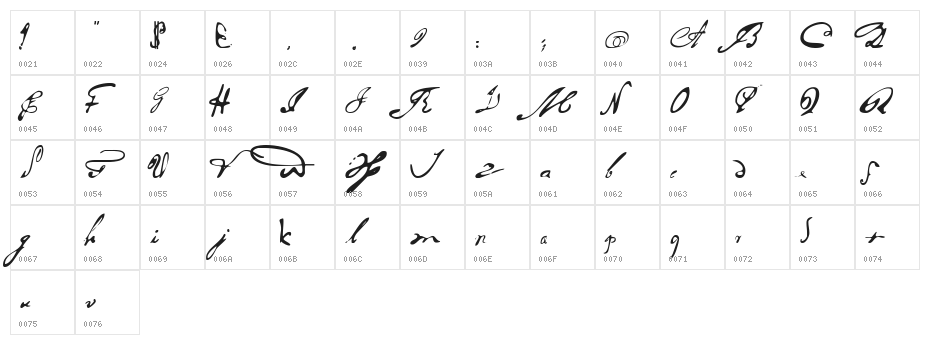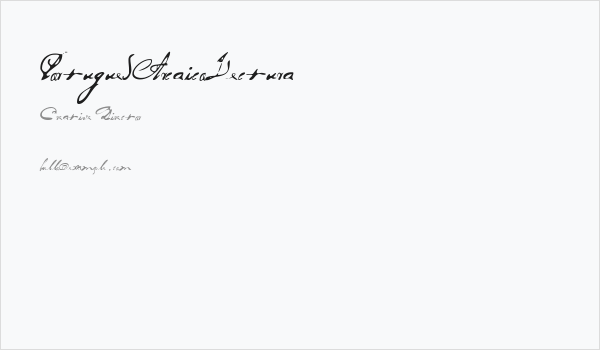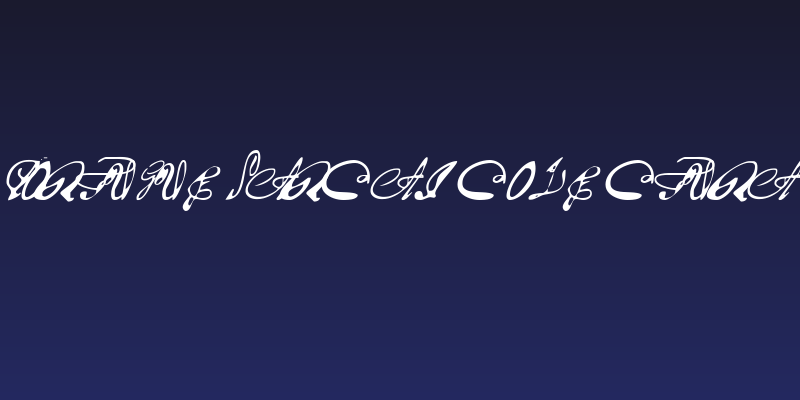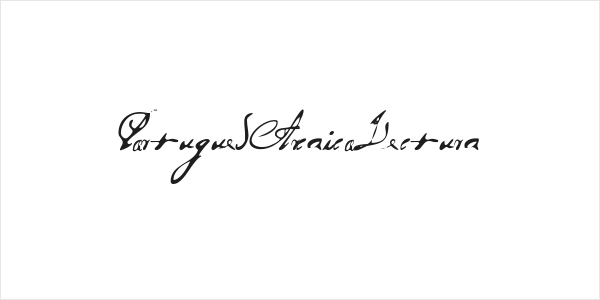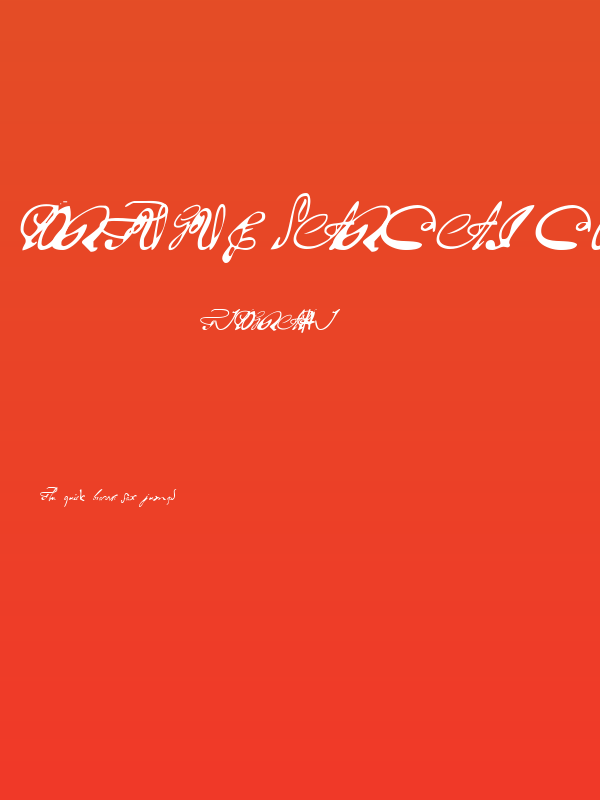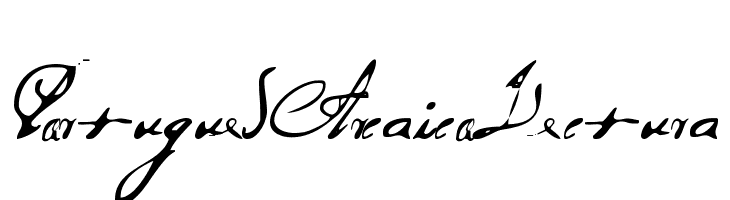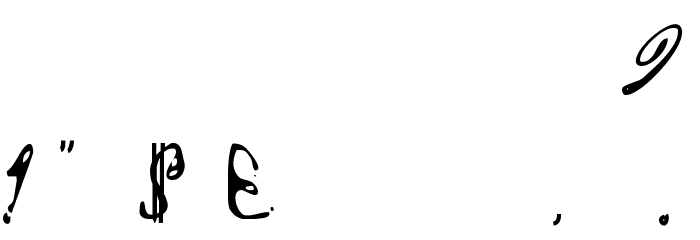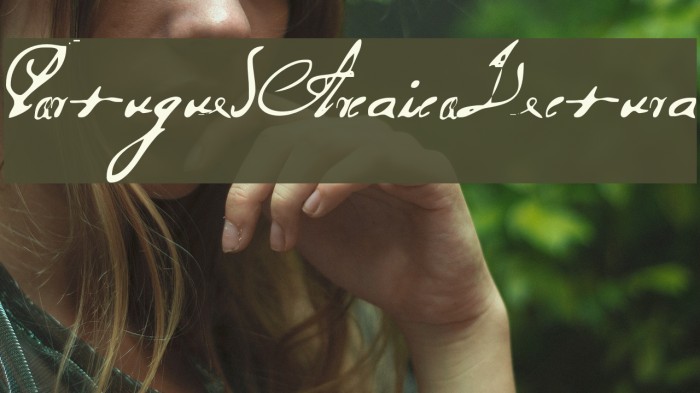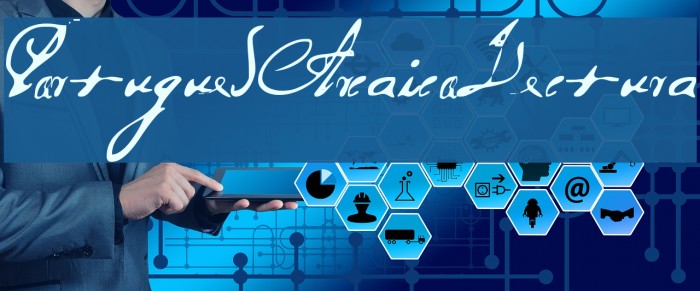
PortuguesArcaicoLectura Font
This font exudes a historical and elegant charm, reminiscent of classical calligraphy with its flowing, ornate strokes. The uppercase letters are grand and sweeping, with intricate loops and flourishes that suggest a sense of sophistication and tradition. The lowercase letters maintain a similar style, though they are slightly more restrained, allowing for readability while still retaining their decorative nature. The numbers and special characters are consistent with the overall aesthetic, featuring the same elaborate detailing. This font would be ideal for projects that aim to evoke a sense of history or luxury, such as invitations, certificates, or branding for high-end products.
| Use Case | Invitations, Certificates, Branding |
| Proposed Projects | Ideal for wedding invitations, historical documents, luxury branding, and certificates. |